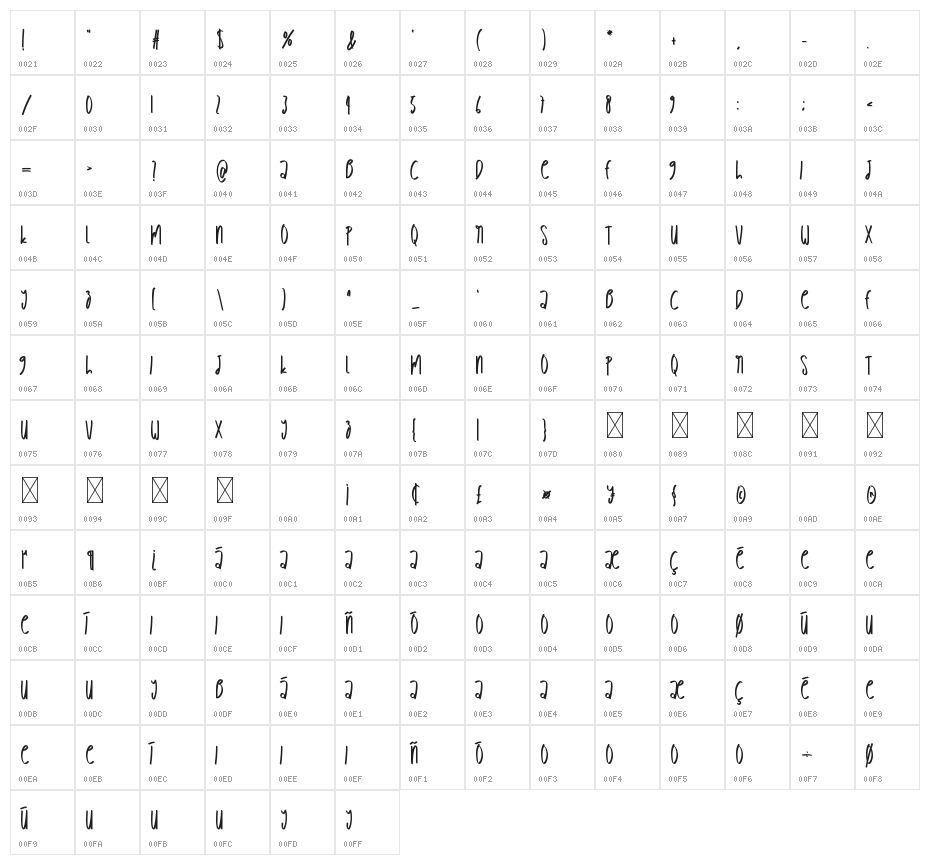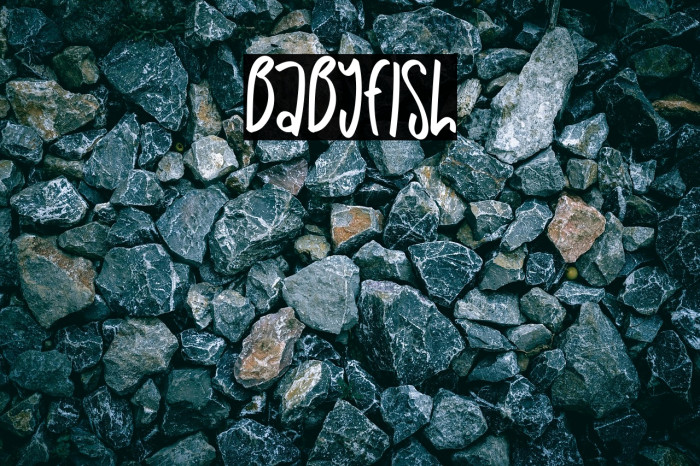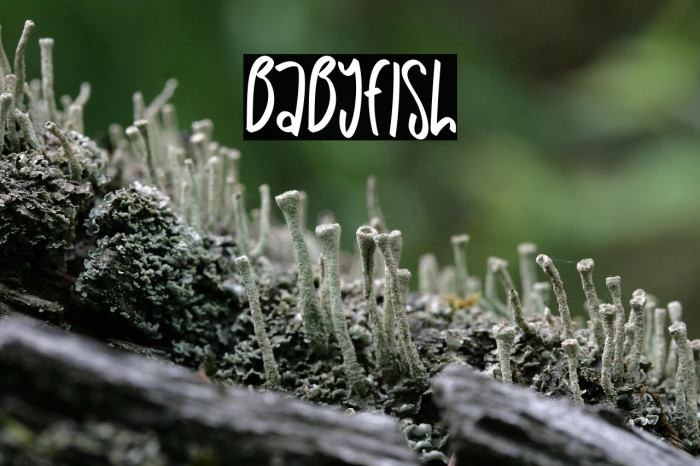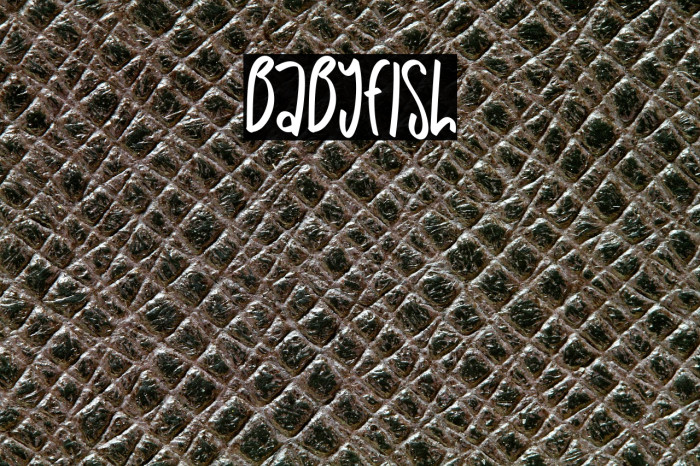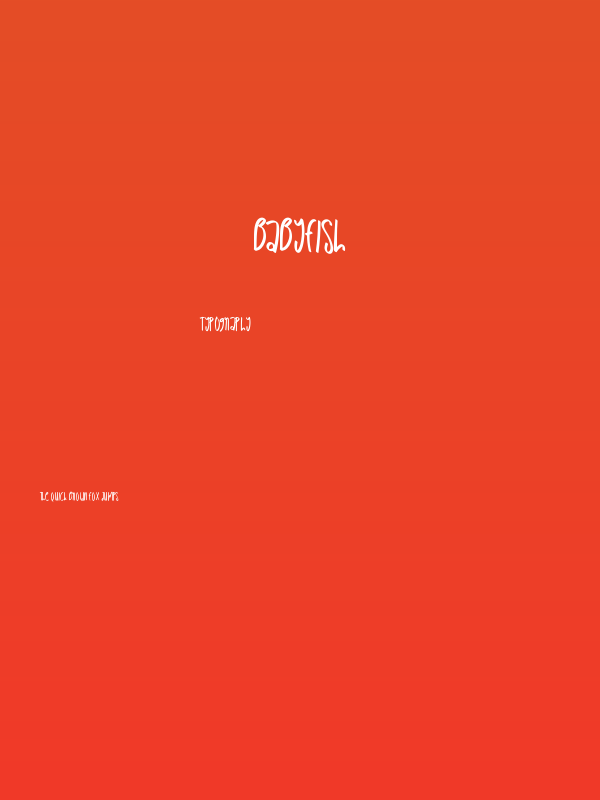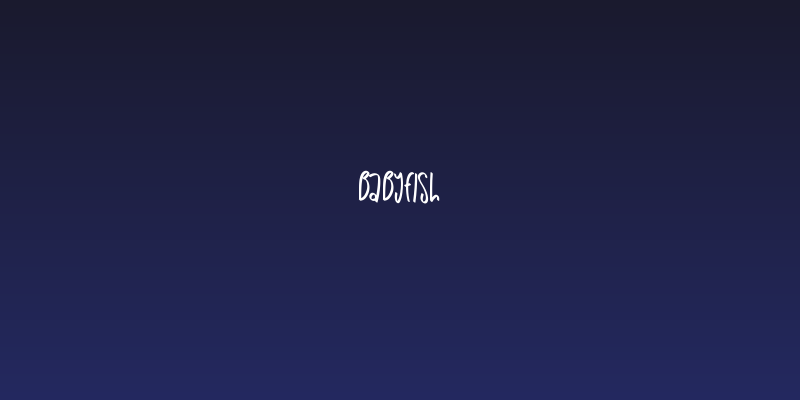
Babyfish Font
Babyfish Description
This playful and whimsical font features a handwritten style with a lively and dynamic appearance. The characters are slightly slanted, adding a sense of motion and energy. The strokes are smooth and rounded, giving the font a friendly and approachable feel. The uppercase and lowercase letters maintain a consistent style, with a slight variation in size and form that enhances the casual aesthetic. The numerals and special characters are crafted to match the overall style, ensuring a cohesive look across all text elements.
Overall StylePlayful
Use CaseHeadlines, Logos, Creative projects
Proposed ProjectsIdeal for children's books, playful branding, greeting cards, and creative projects that require a friendly and approachable typeface.